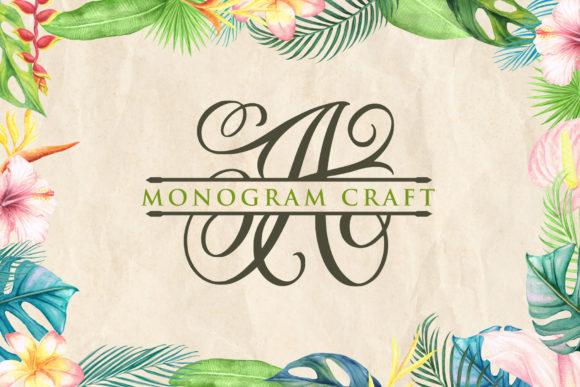
Monogram Craft: Embellish Your Design with an Air of Elegance
Introduce a touch of refined artistry to your creative projects with Monogram Craft, a delicate and ornate decorative font designed by the talented Sigit Dwipa. Inspired by the intricate beauty of monograms, this font is meticulously crafted to add a personal and elegant touch to your designs.
With its sweeping curves, playful details, and intricate flourishes, Monogram Craft elevates your projects to a realm of sophistication. Its distinctive design lends itself beautifully to wedding invitations, love letters, personal branding, greeting cards, and a myriad of other creative endeavors.
Imagine transforming your wedding invitations into timeless heirlooms with Monogram Craft's romantic and enchanting letterforms. Envision the awe-inspiring impact of your meticulously designed logos, where each letter carries a unique story. Create delightful social media posts that stand out from the crowd, capturing the attention of your audience with their intricate charm.
Unleash your creativity and watch as Monogram Craft weaves its magic, captivating hearts and igniting imaginations. Let the intricate lines and graceful flourishes of this extraordinary font add an unforgettable touch to your design journey. Experience the joy of creating designs that exude an aura of elegance and timeless beauty with Monogram Craft.